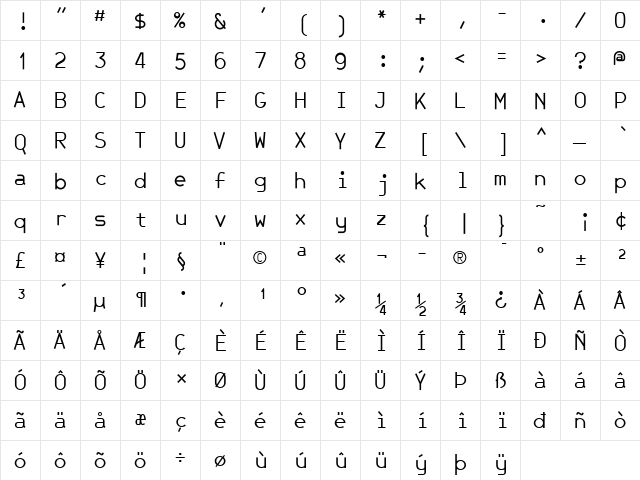
JetJaneMonoMM Regular
Design Context for JetJaneMonoMM Typeface
JetJaneMonoMM brings the precise, column-aligned rhythm of monospaced typography to designs that value technical clarity and systematic order.
A natural fit for code editors, technical documentation, developer-focused branding, and terminal-inspired UI.
Pro Tip: Pair JetJaneMonoMM with a proportional sans for UI contexts where code-style labels and regular body copy need to coexist.